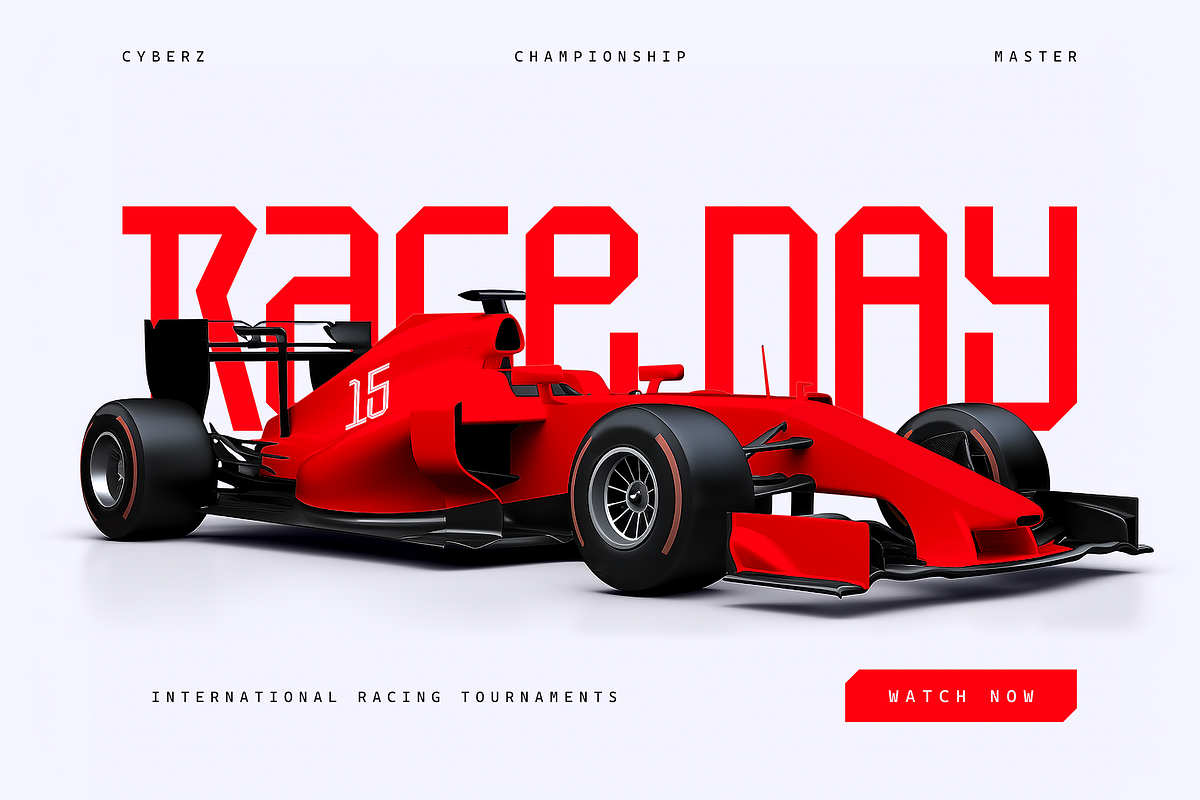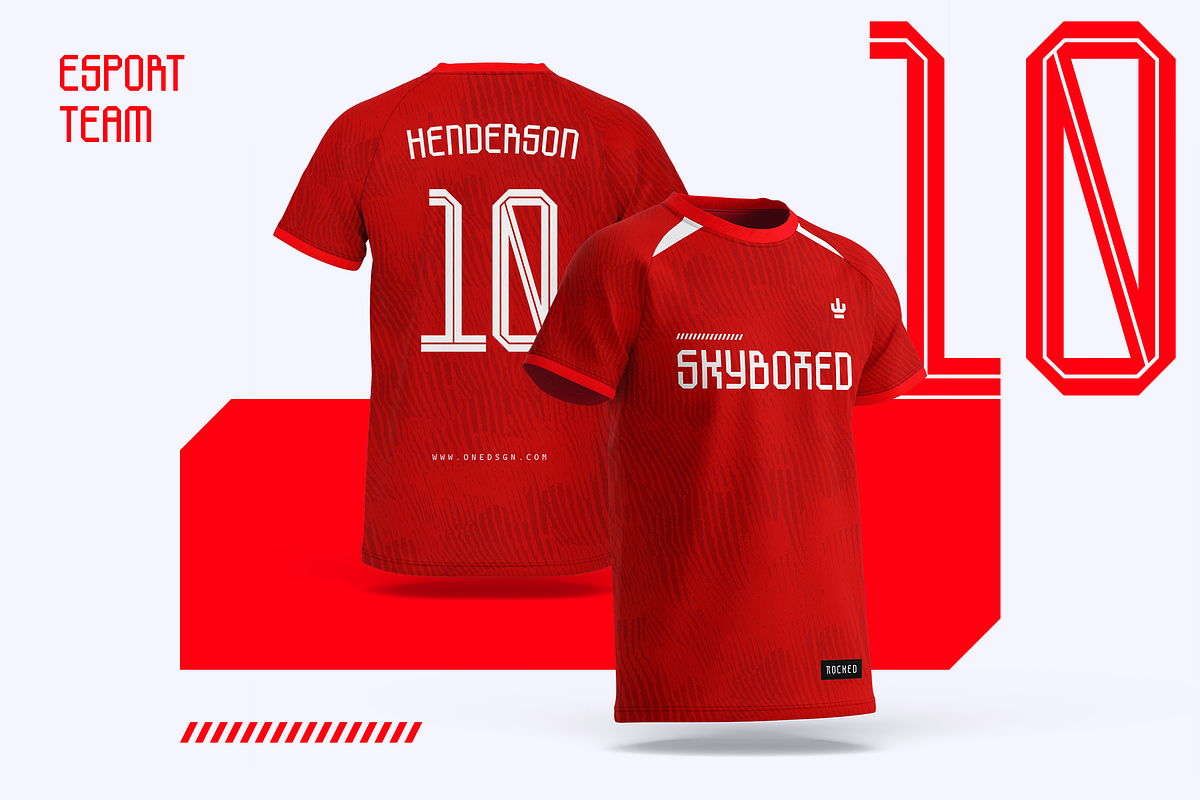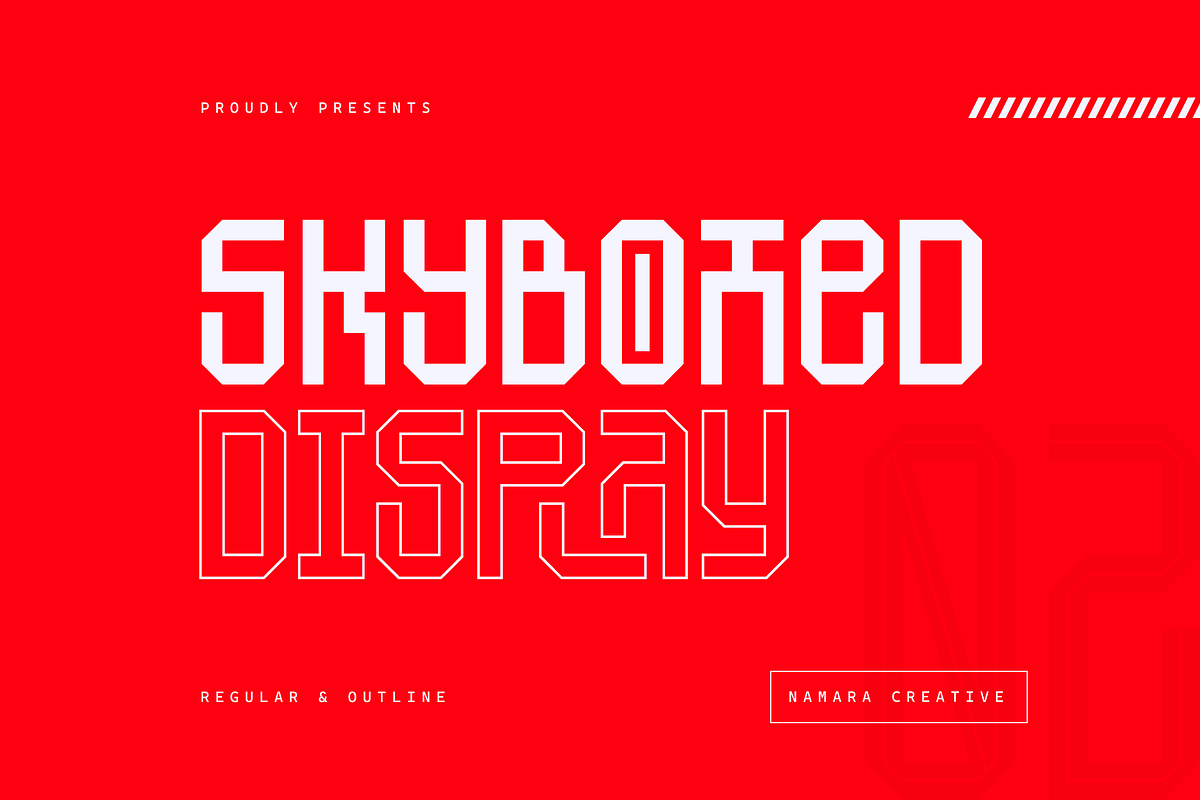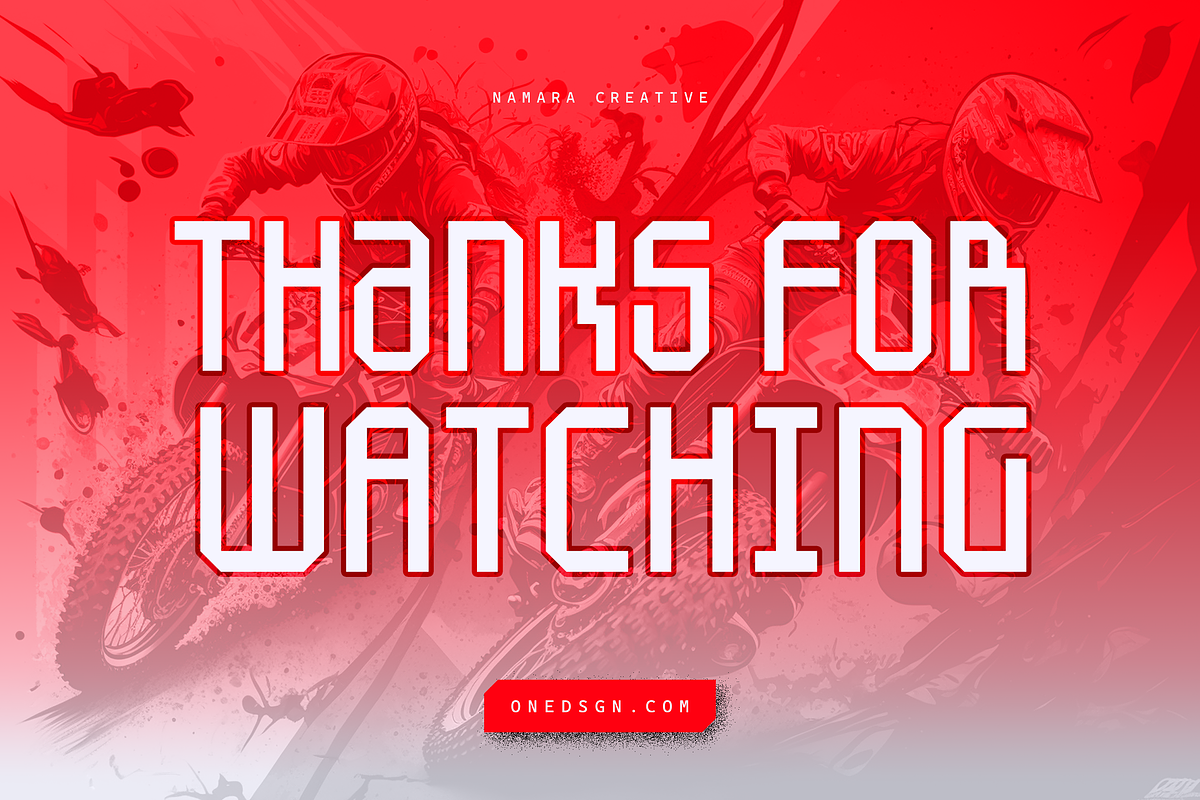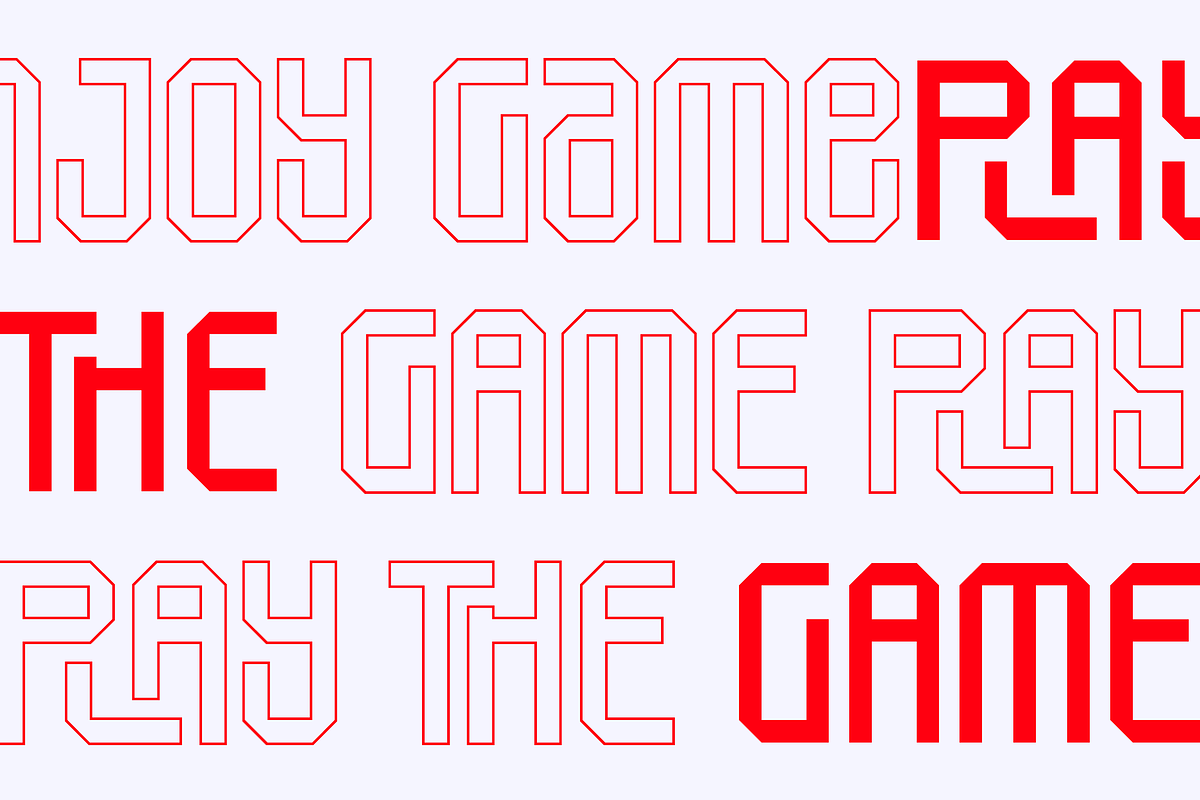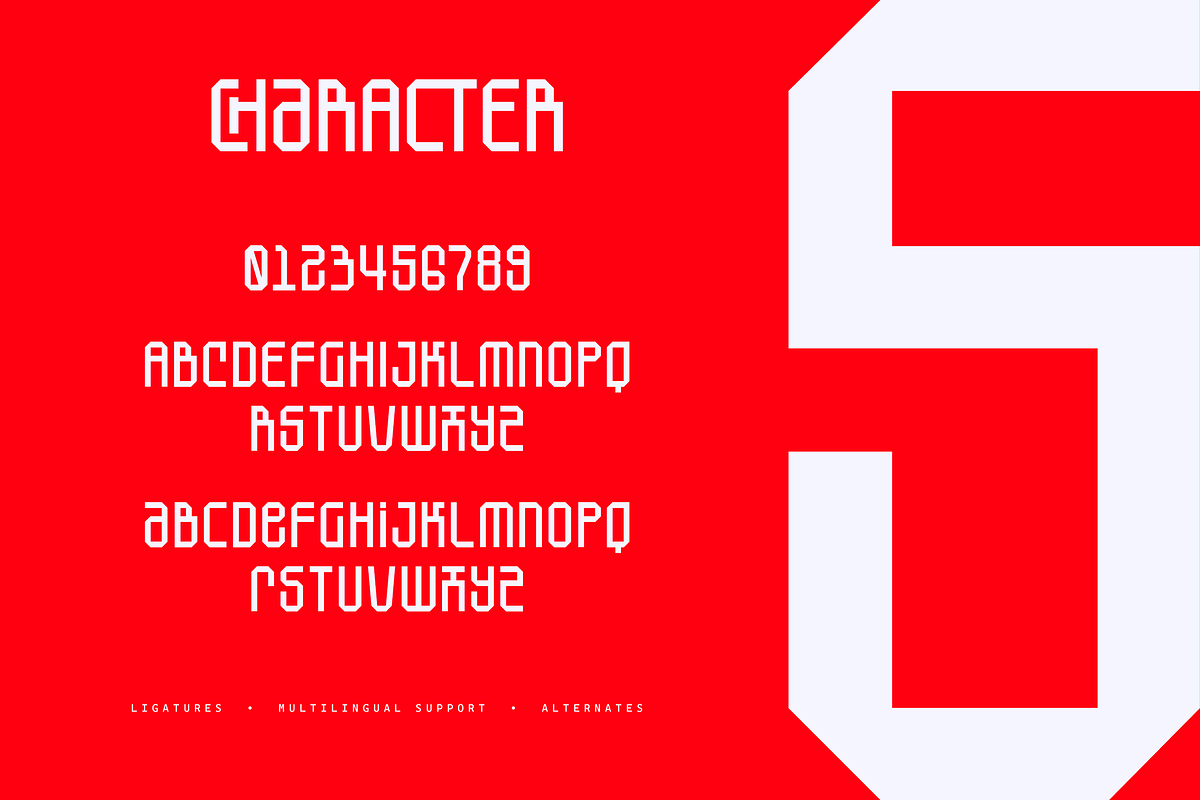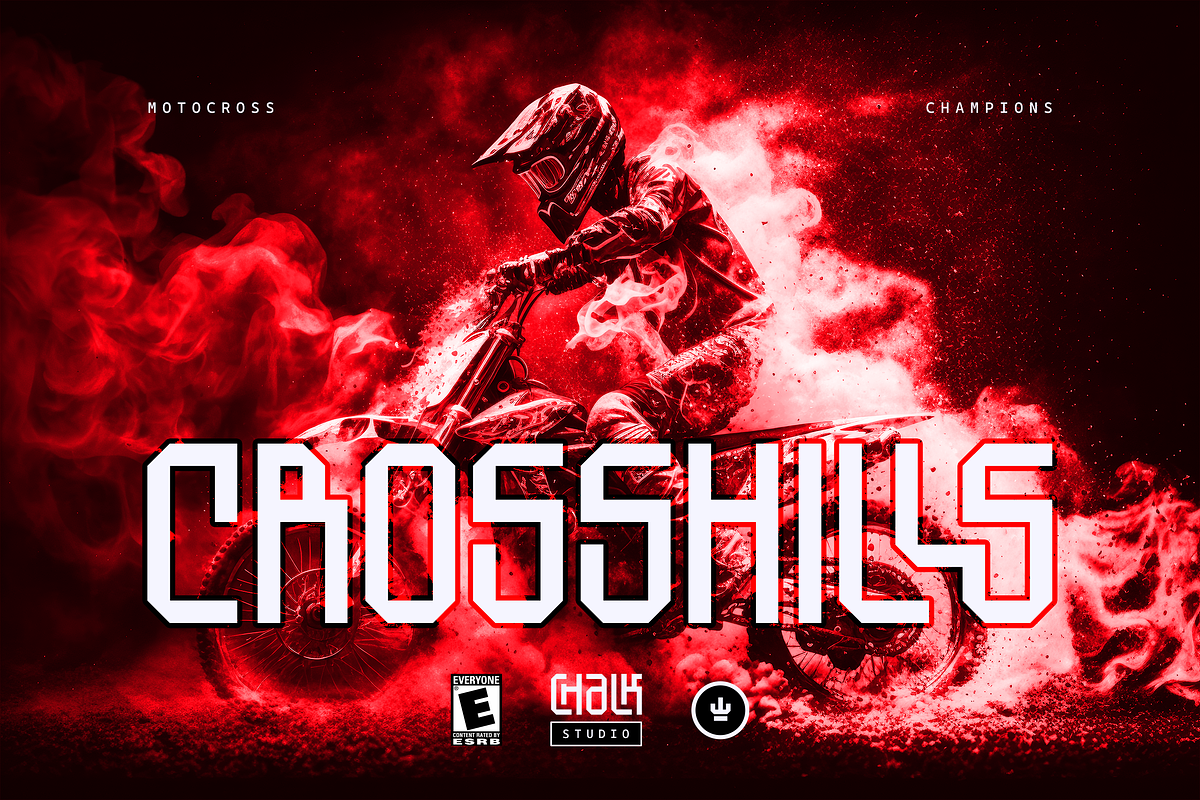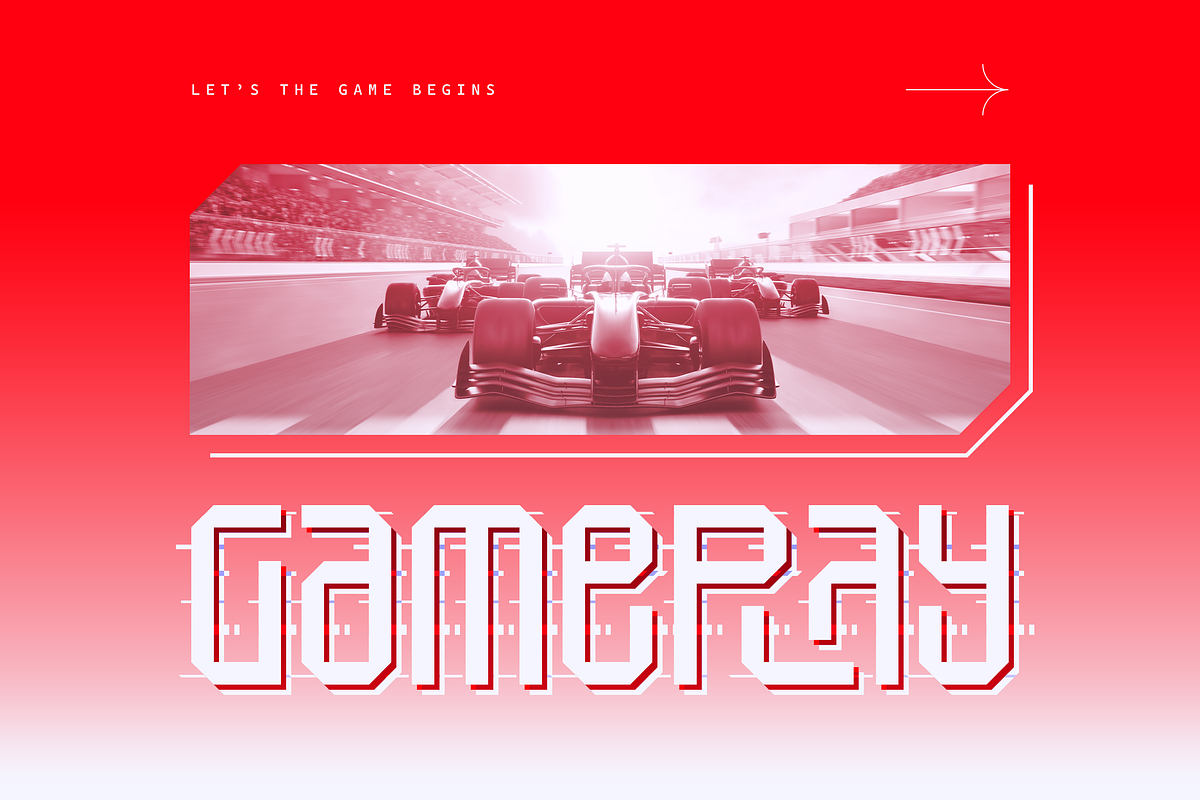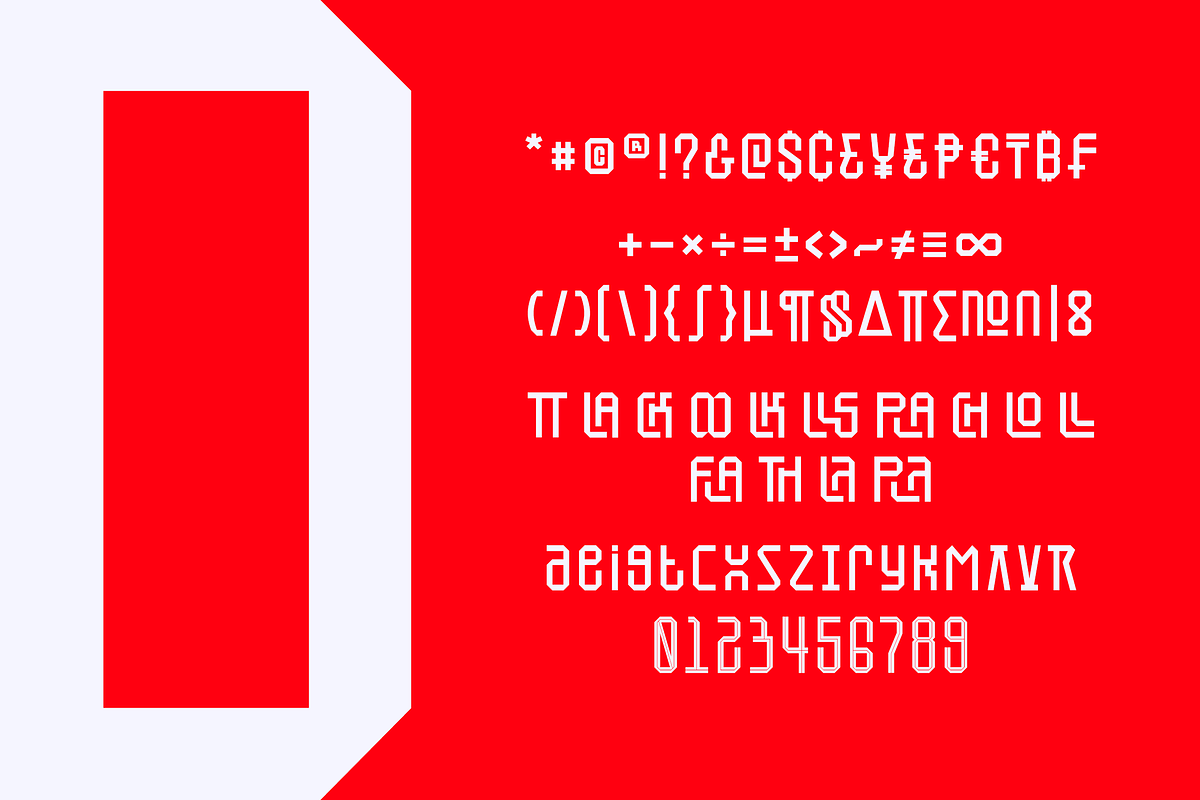
SkyBoxed - Futuristic Display Fonts
Experience the next level of typography with SkyBoxed – a modern futuristic display font. Powerful font boasts a cutting-edge design inspired by strength and assertiveness. It’s the perfect choice for sports jerseys, logos, headlines, posters, esports advertising, and any project that demands impact and distinction.
- Techno Cutting Edge with Futuristic Tech Looks.
- Alternates, Ligatures & Multilingual Support